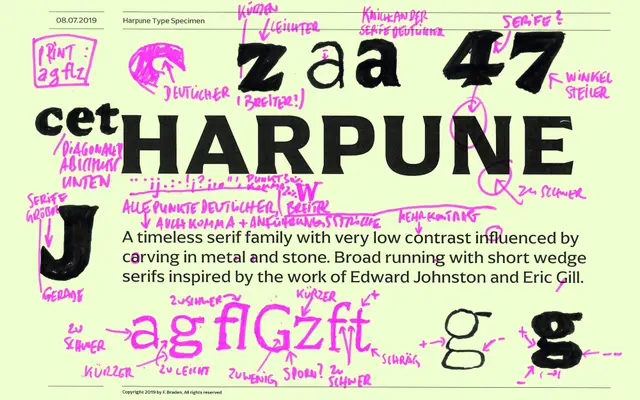
A wedge-serif family in nine weights, drawn from Roman incised lettering and aimed at corporate, editorial and packaging contexts where a strong individual character is wanted.
Inspired by letters carved in stone, Arpona sits somewhere between a serif and a sans-serif, using small wedge serifs to lend it an upright, lapidary quality. Nine weights from Thin to Black each come with matching italics, and 590 glyphs per style cover western, eastern and central European Latin languages alongside four figure sets and various currency symbols. Despite its display character, the foundry notes it remains readable at text sizes on screen.
Arpona uses small wedge serifs inspired by Roman incised lettering, sitting between a serif and sans-serif in character. The foundry describes it as neither a serif nor a sans but a symbiosis of design concepts, making wedge serif the most accurate subcategory.